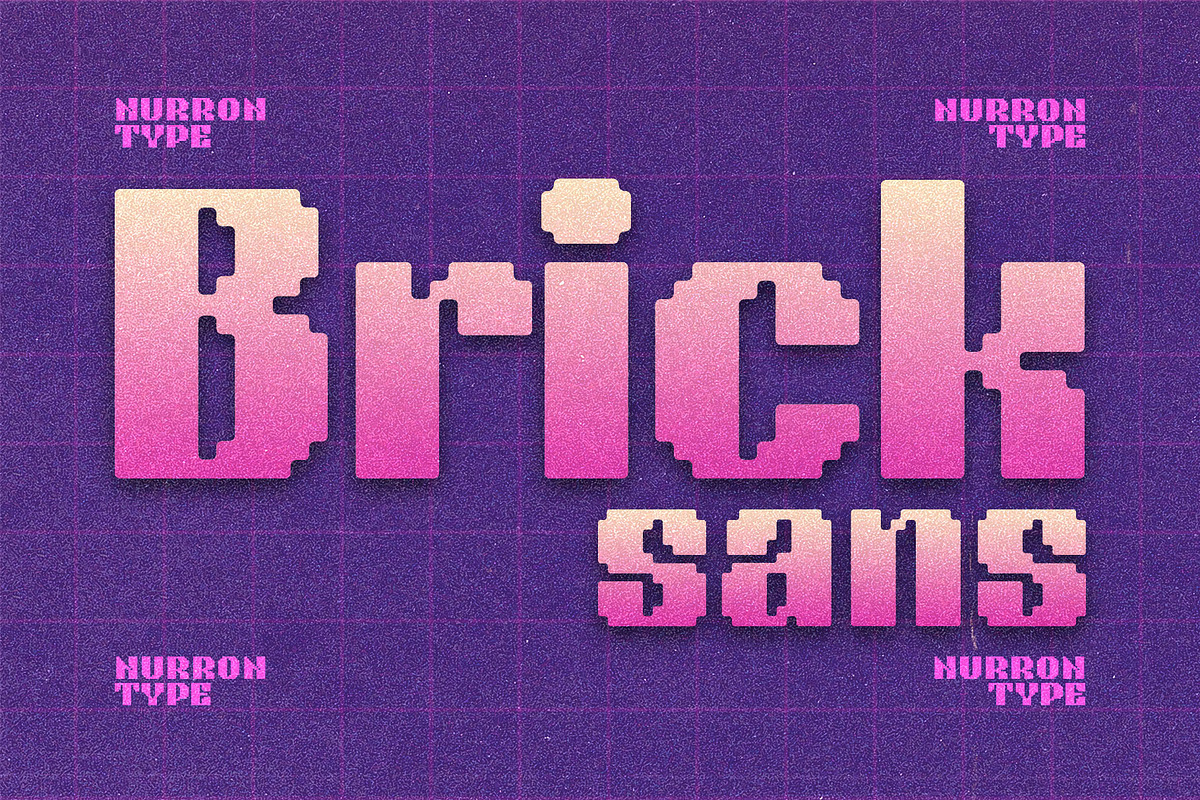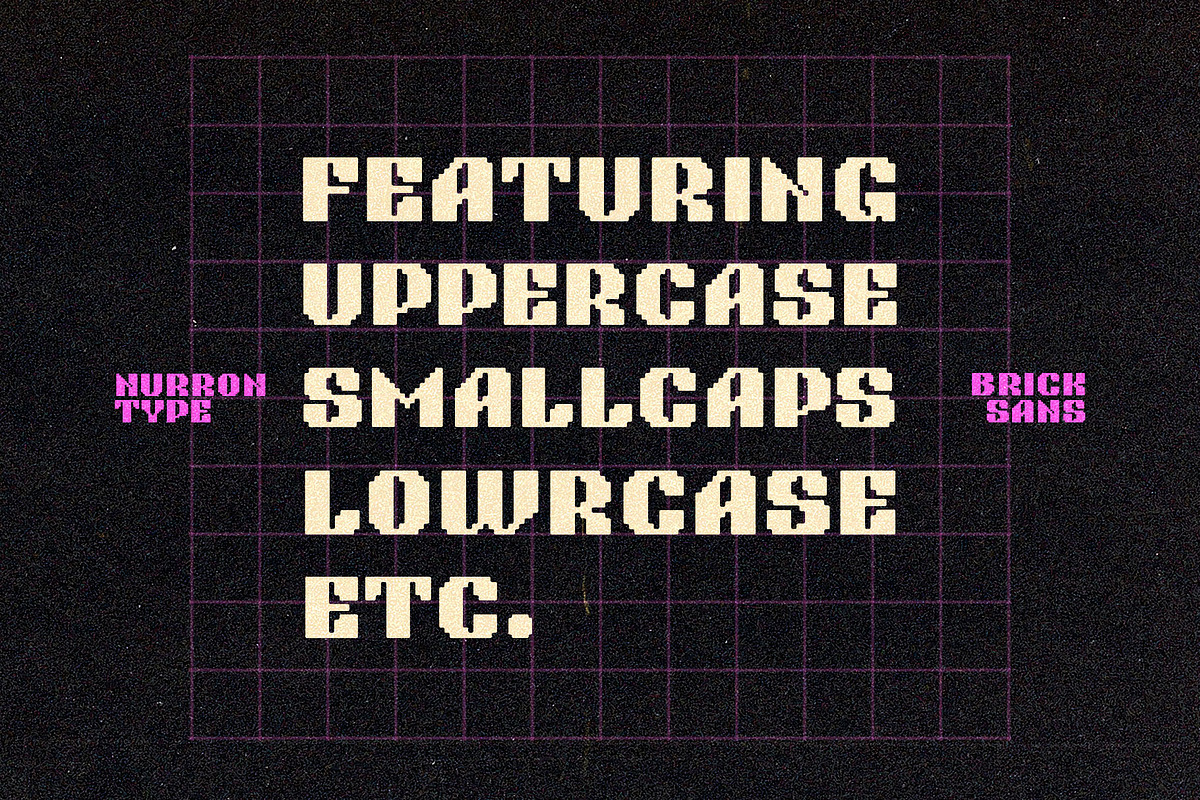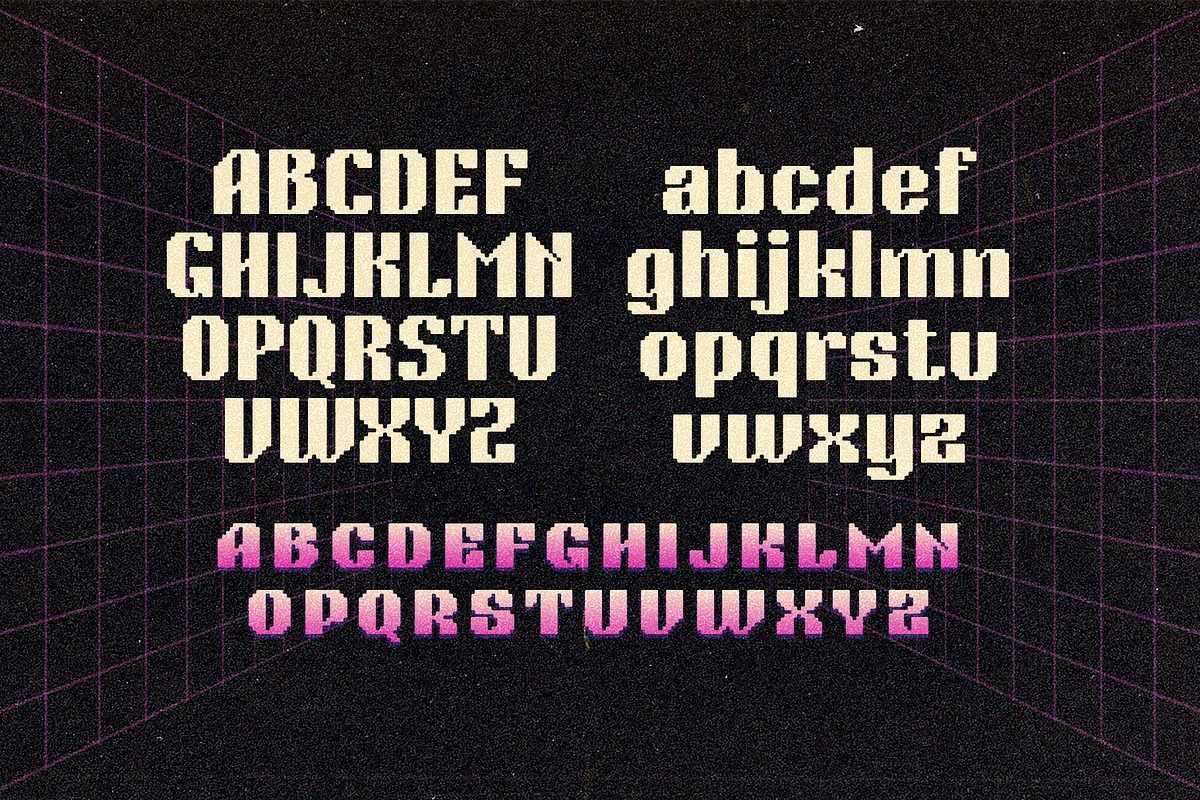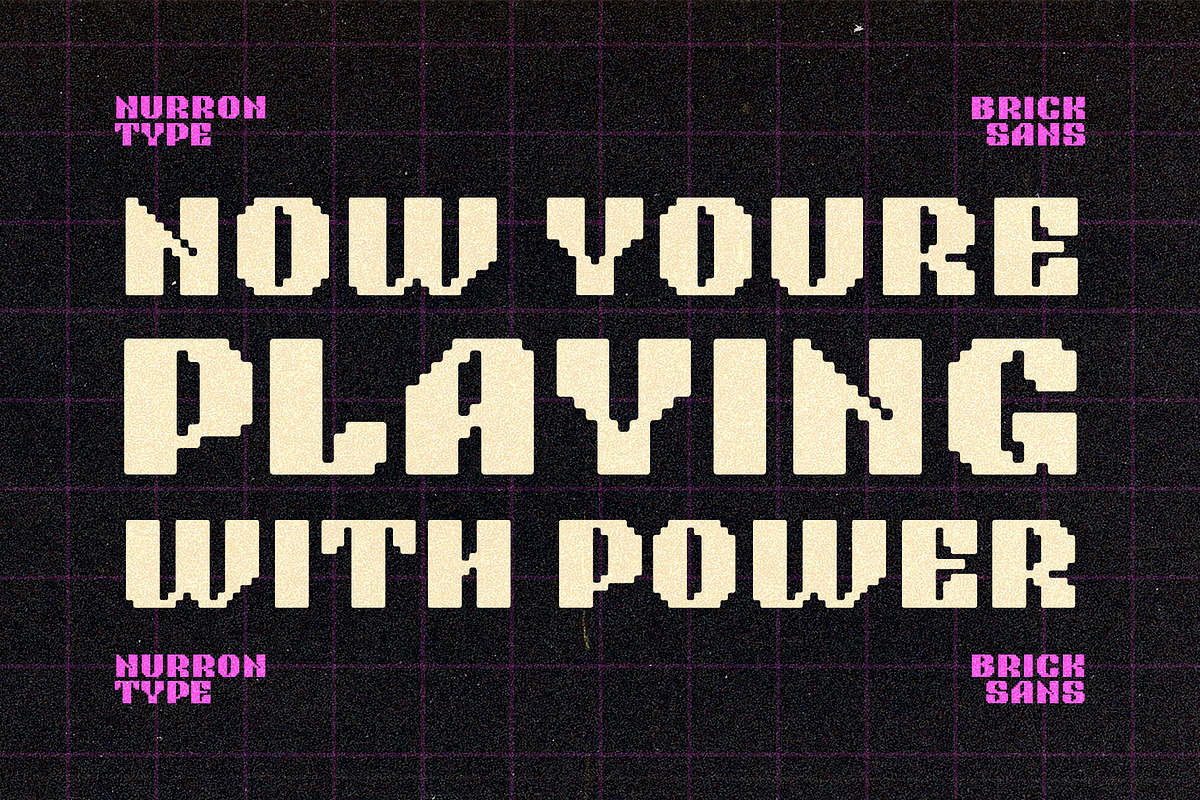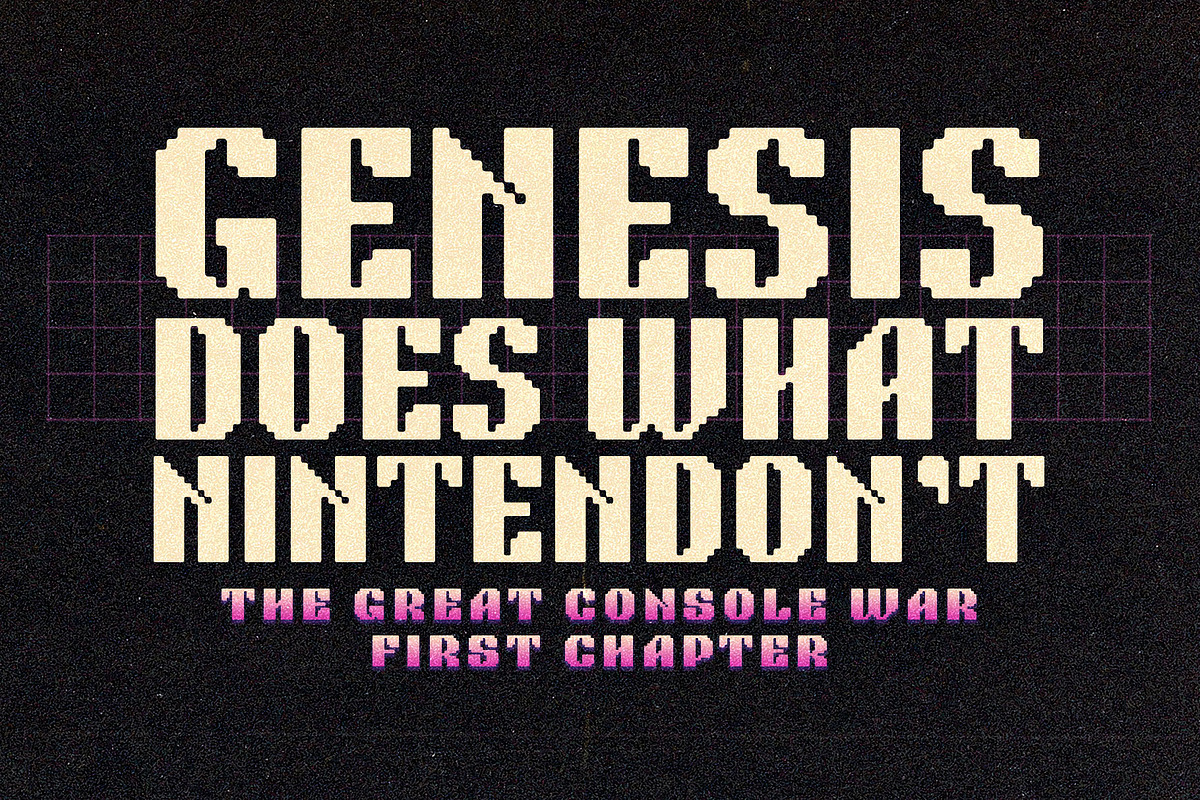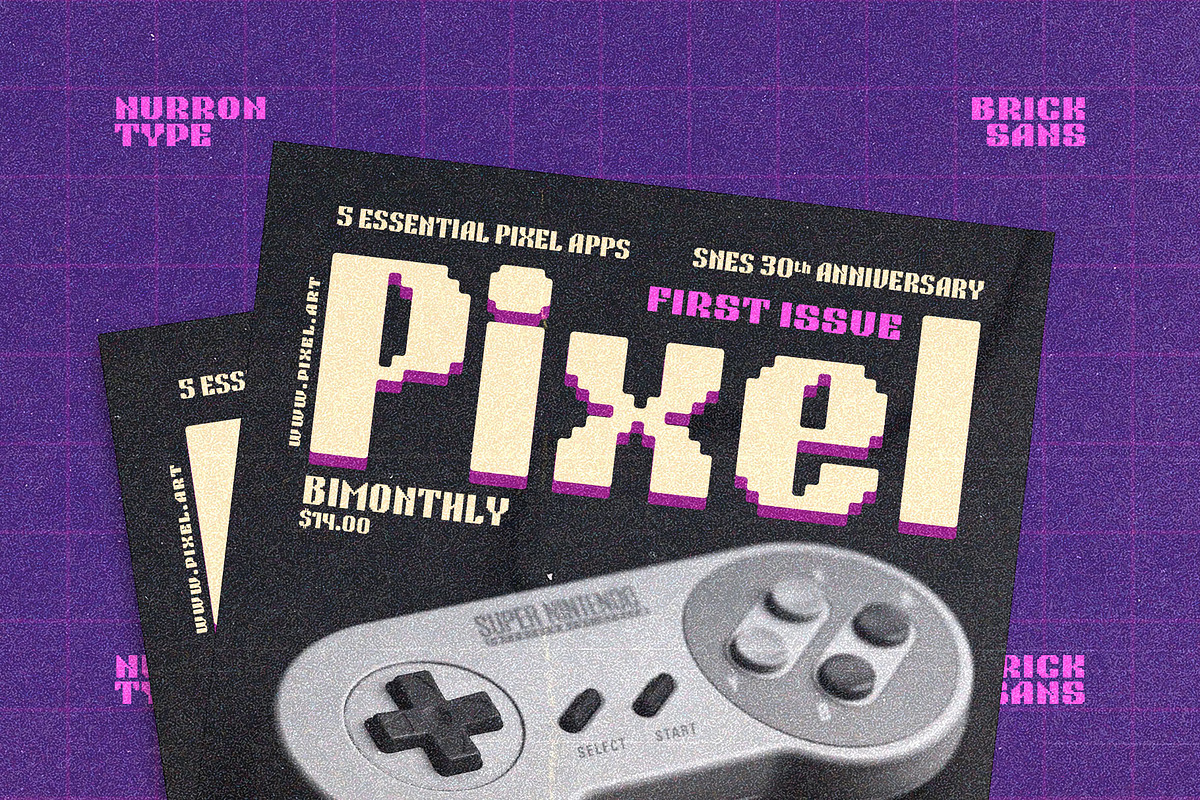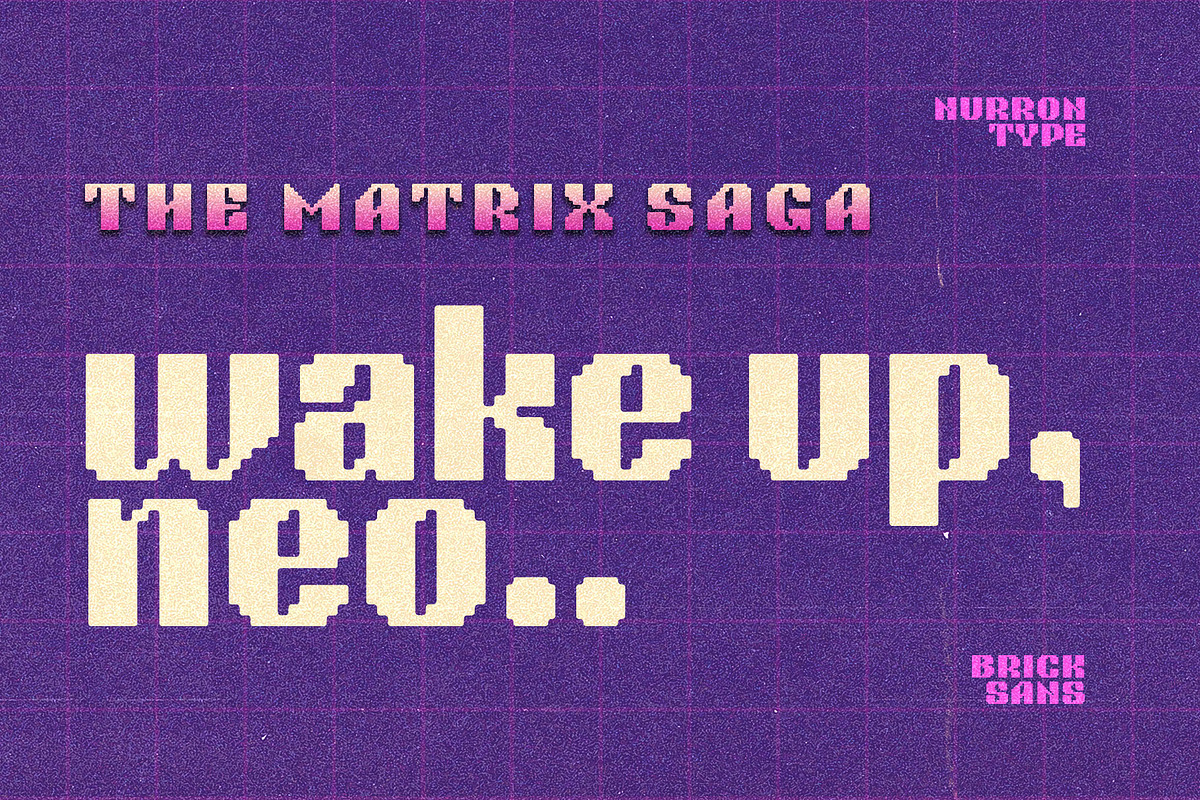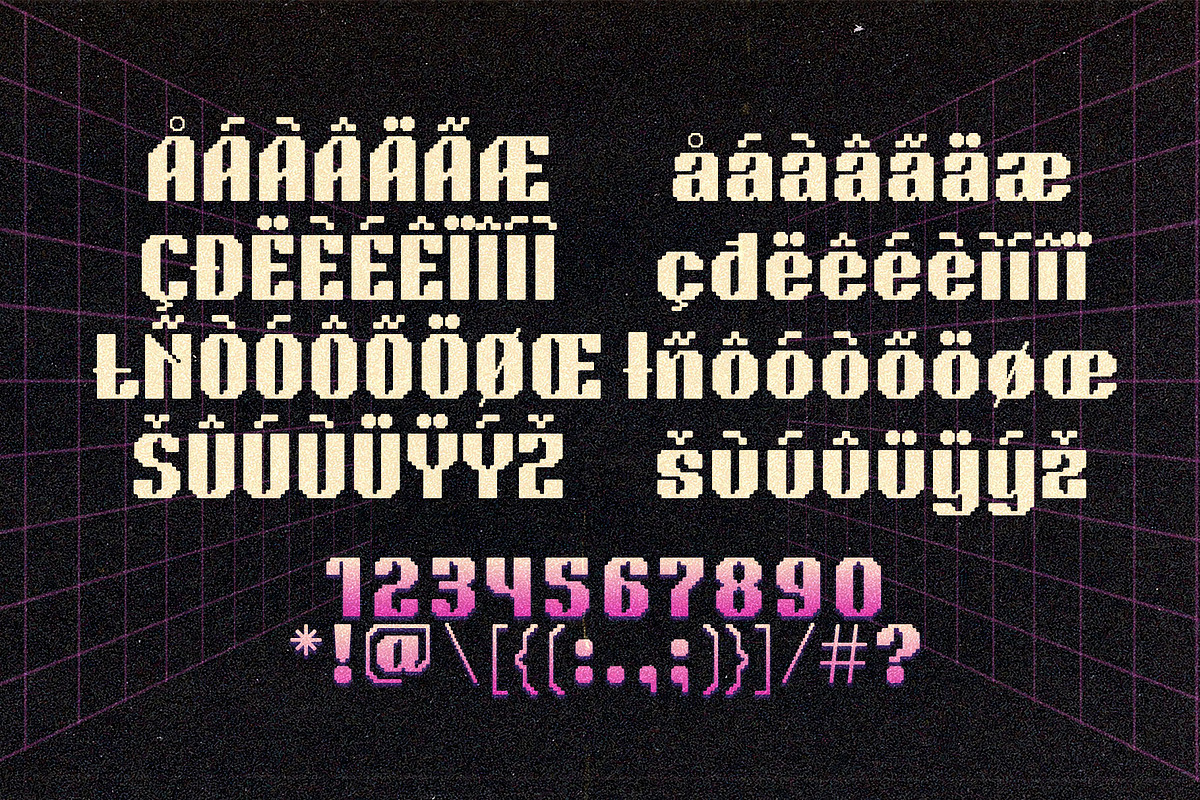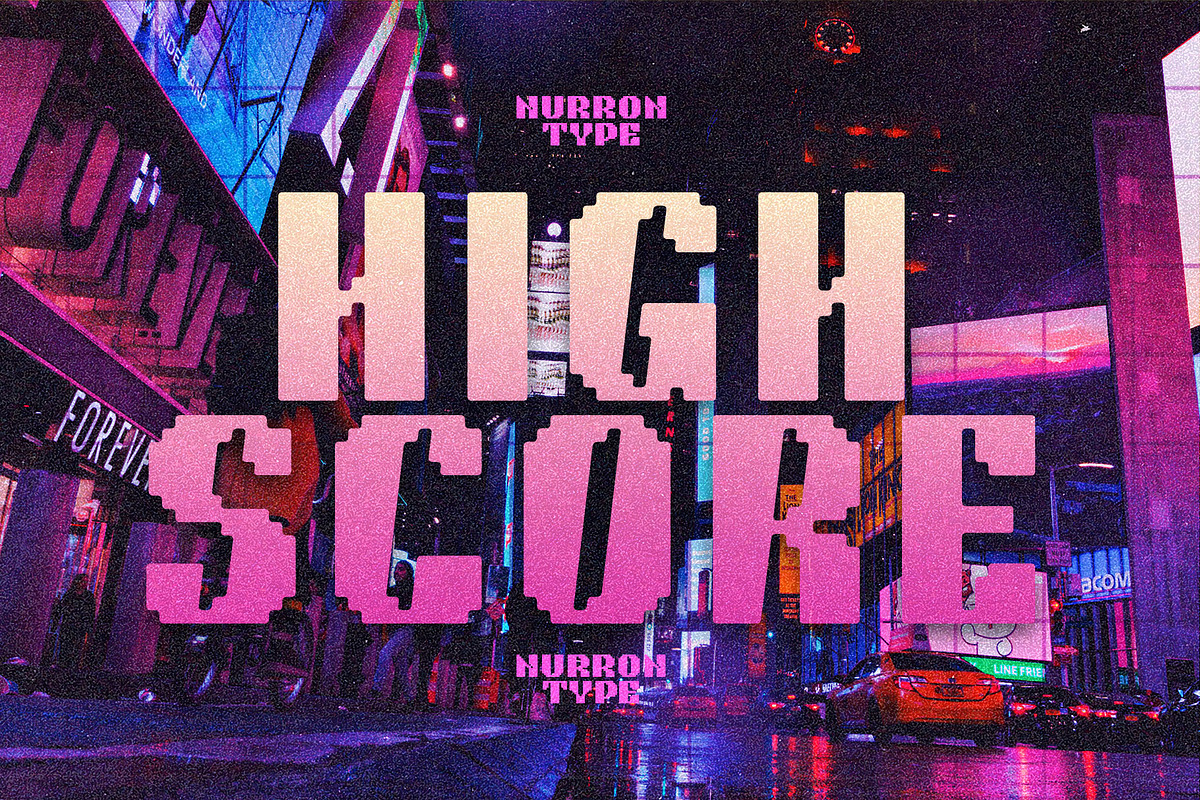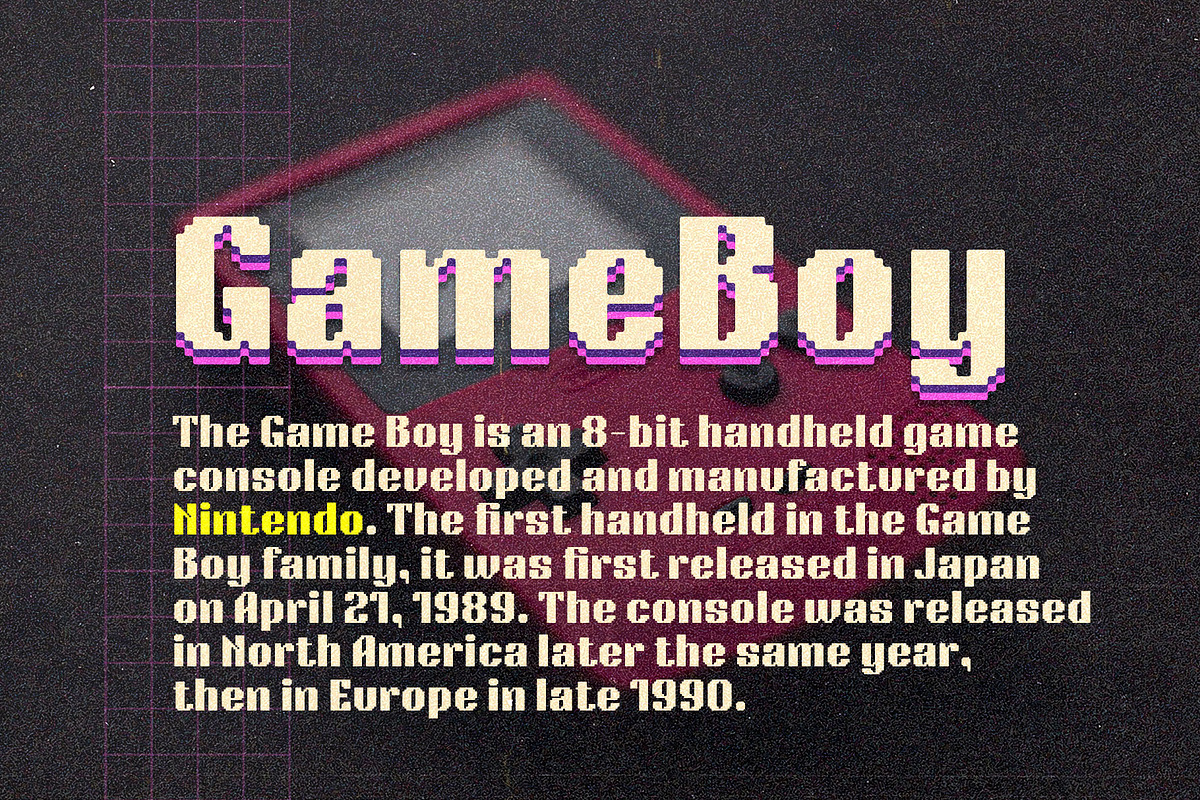
NT Brick Sans
Meet NT Brick Sans, a pixelated sans serif inspired by 90's video game console. Ideas come up while i'm watching series about an early days of video game console wars. NT Brick Sans is Bold, retro and stand out. It has uppercase, small caps, lower case and multilingual support.